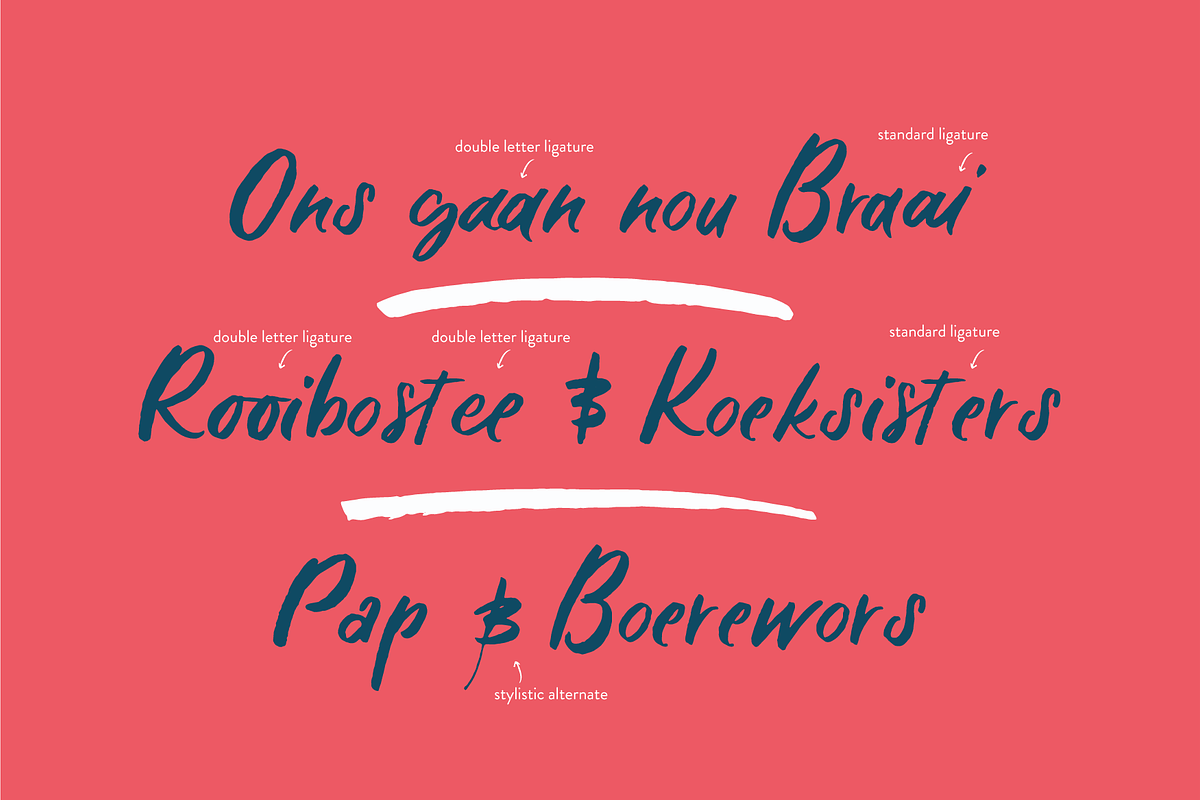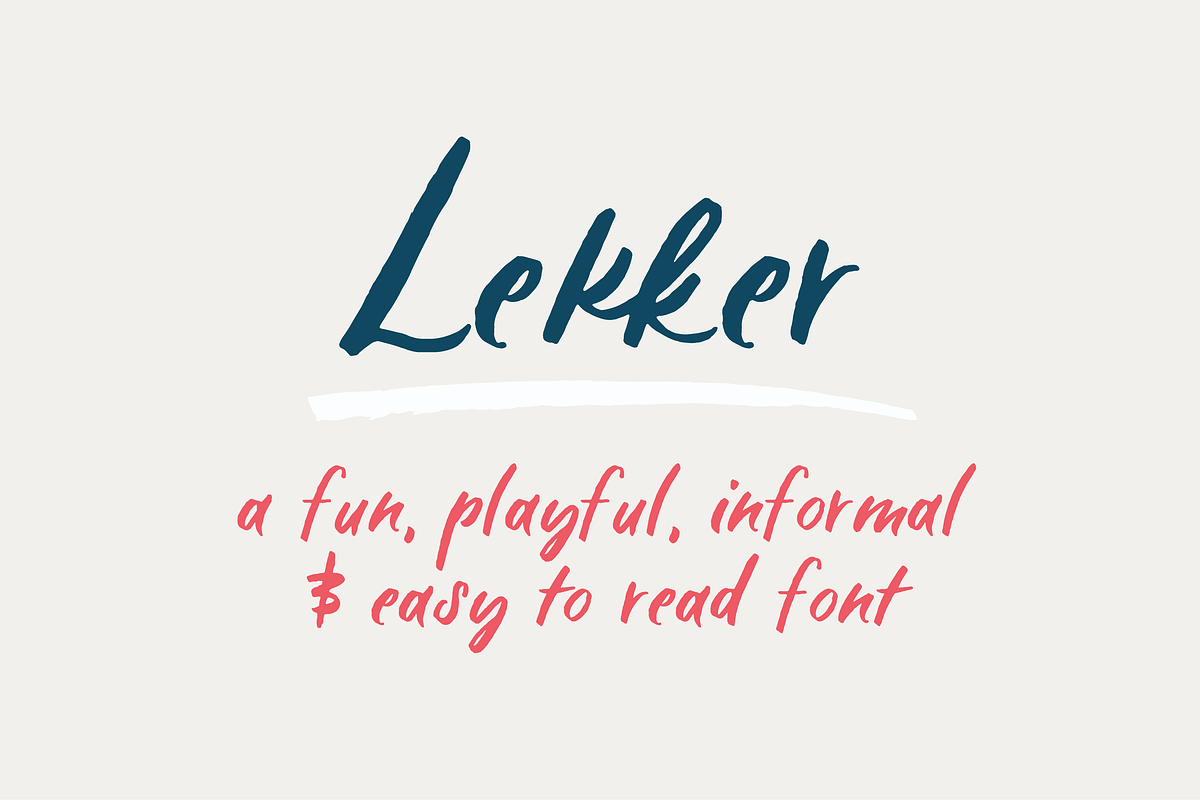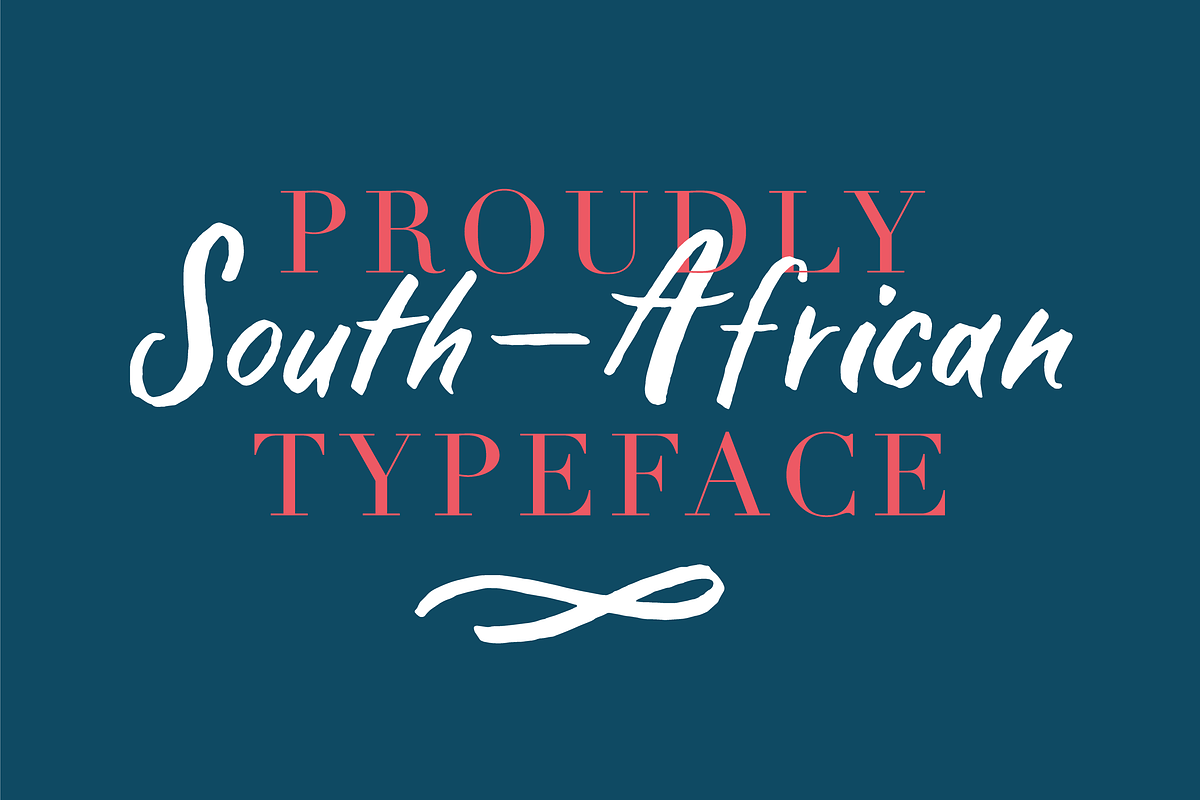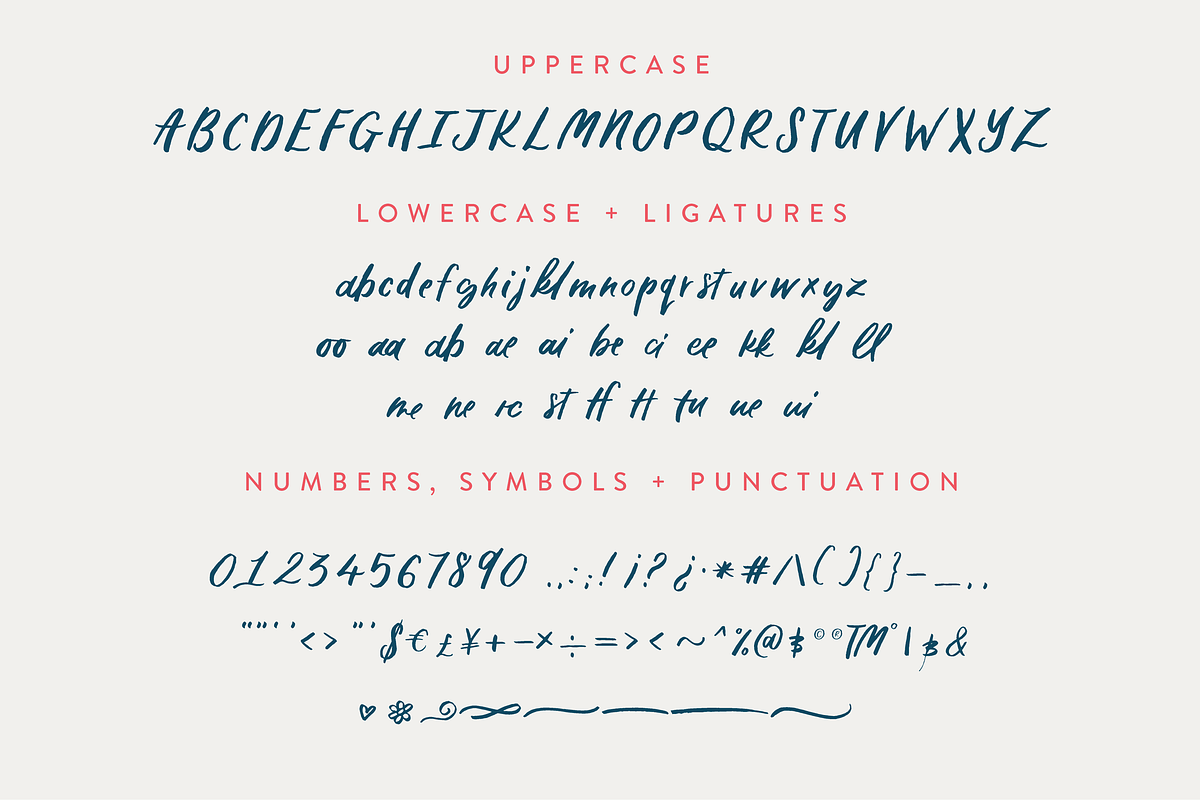
Lekker Handwritten Font
"Lekker" is an Afrikaans word, that does not quite have an English equal. I can sum it up with the following mixture of words: yummy, nice, fun, joy. That is what this typeface encapsulates. A fun, playful, informal and easy-to-read san serif font with a few script ligatures.
Lekker includes multilingual support for All Western Europe languages, as well as Afrikaan (of course)